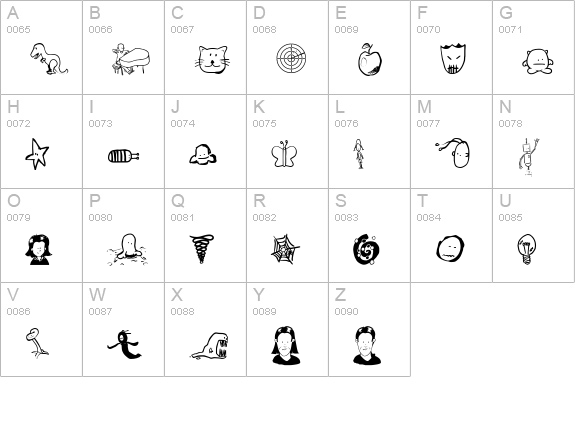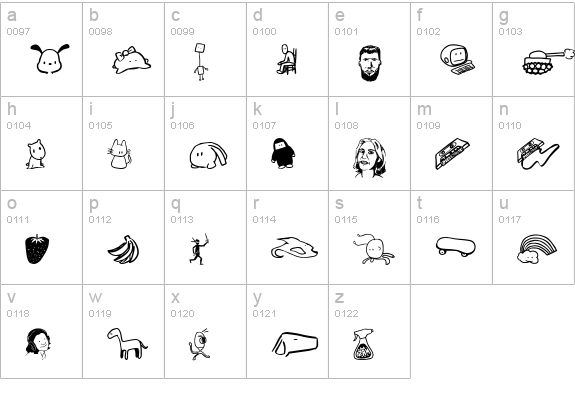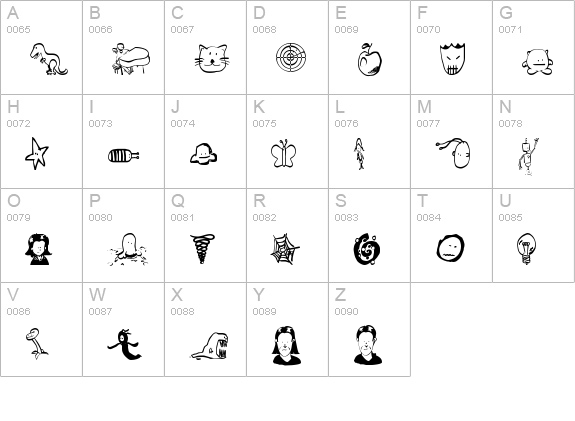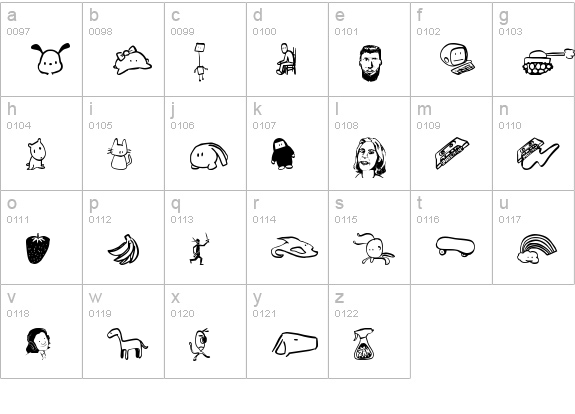
Tombats 7 font is a captivating and versatile typeface that will add a touch of creativity and originality to any design project. With its unique and intricate letterforms, this font exudes a sense of mystery and elegance that is perfect for logos, headlines, and branding materials. What sets Tombats 7 font apart is not only its stunning aesthetics, but also the fact that it is available for free! Yes, you heard it right. This font can be freely downloaded at FontsMarket.com, allowing designers, artists, and enthusiasts to explore and unleash their creativity without any cost. Whether you are working on a personal project, a professional assignment, or simply looking to elevate your design game, Tombats 7 font is a must-have in your font collection. Its bold and distinct character will make your text stand out, while its versatility ensures that it can be used across various design styles and themes. With its wide range of glyphs and symbols, Tombats 7 font offers endless possibilities for experimentation and customization. From playful icons to ornate decorative elements, this font enables you to create visually stunning compositions that will leave a lasting impression on your audience. So, why wait? Embrace the beauty and freedom of Tombats 7 font and let your imagination soar. Download it for free at FontsMarket.com and unlock a world of design possibilities.